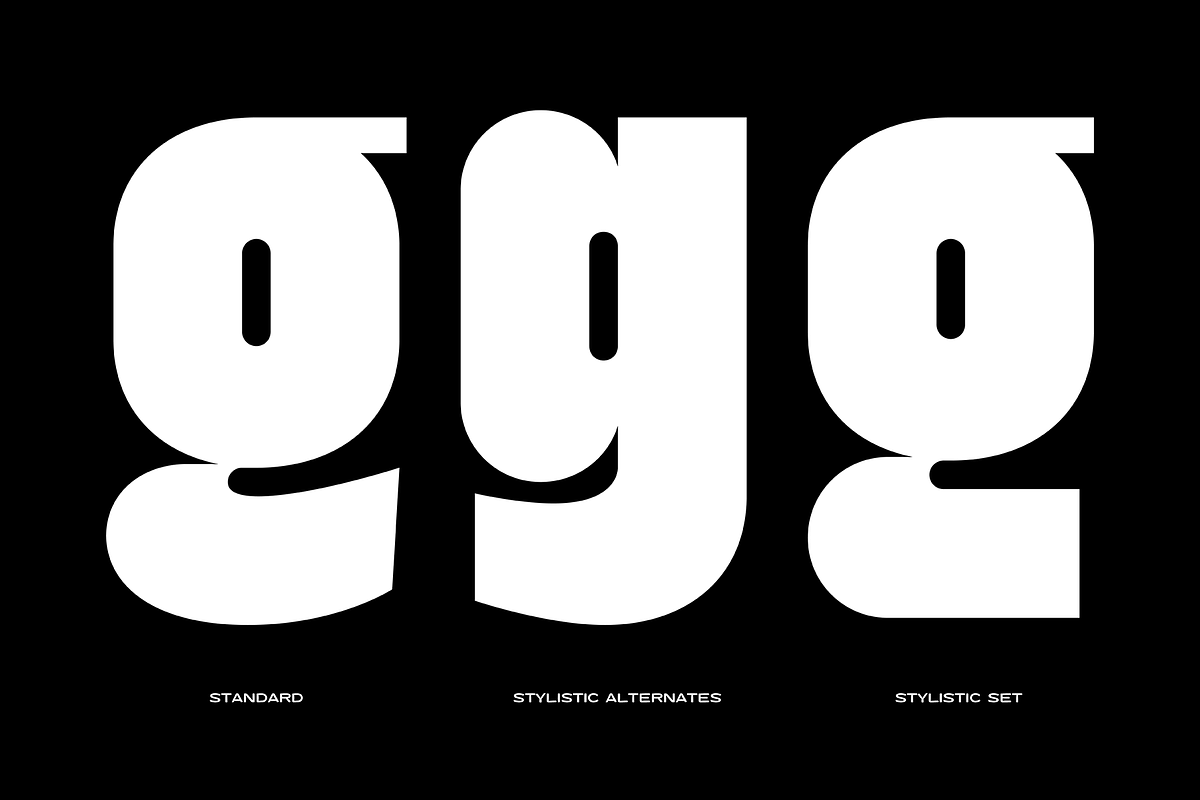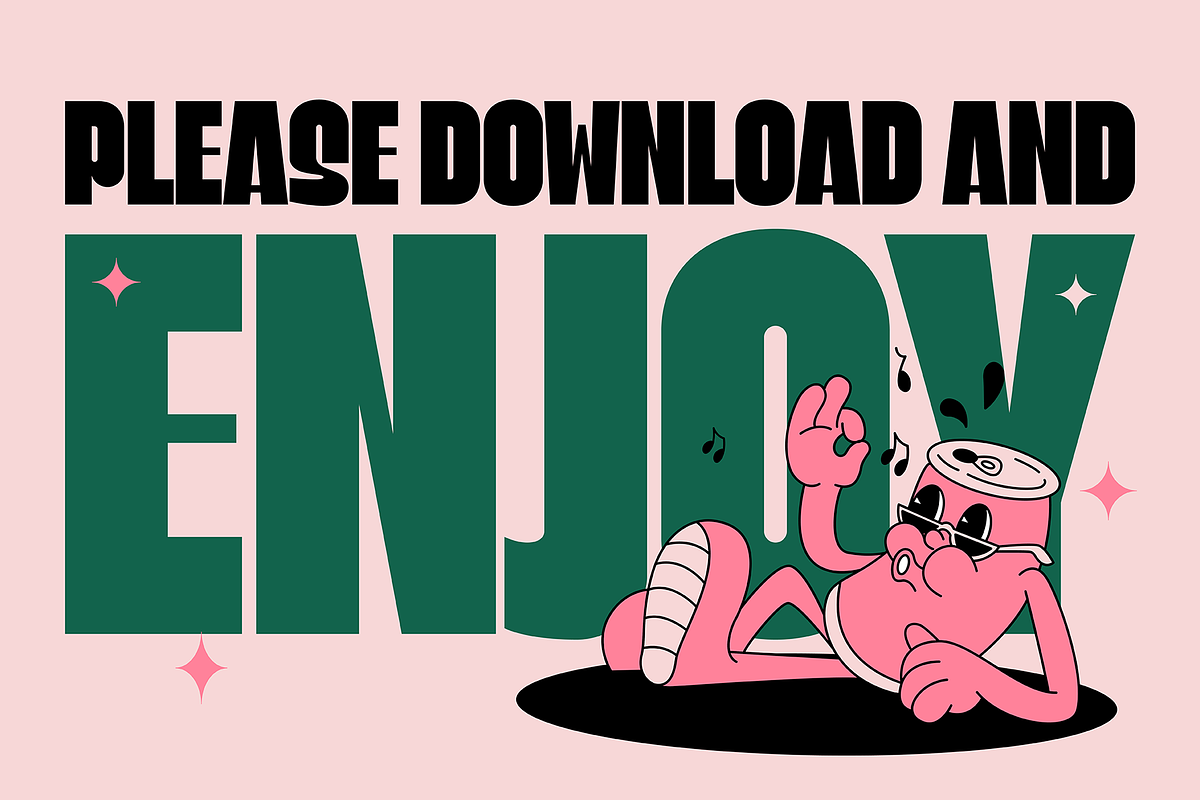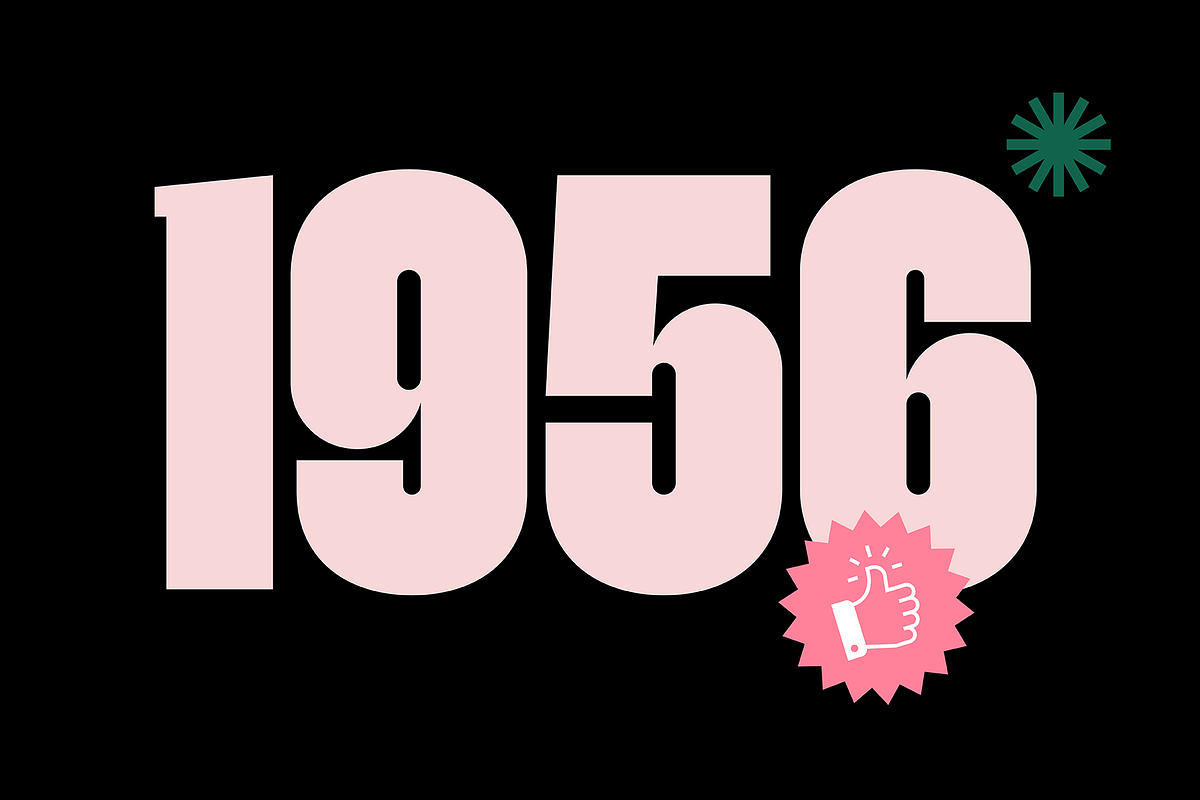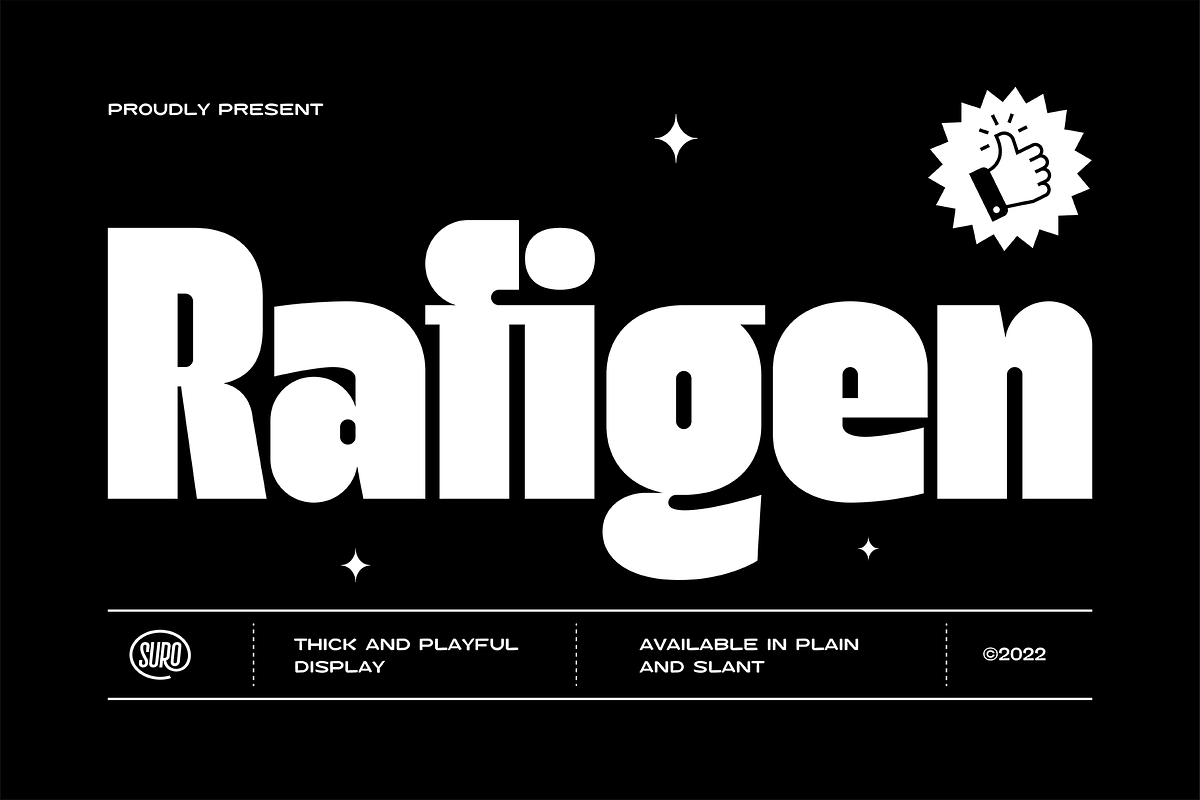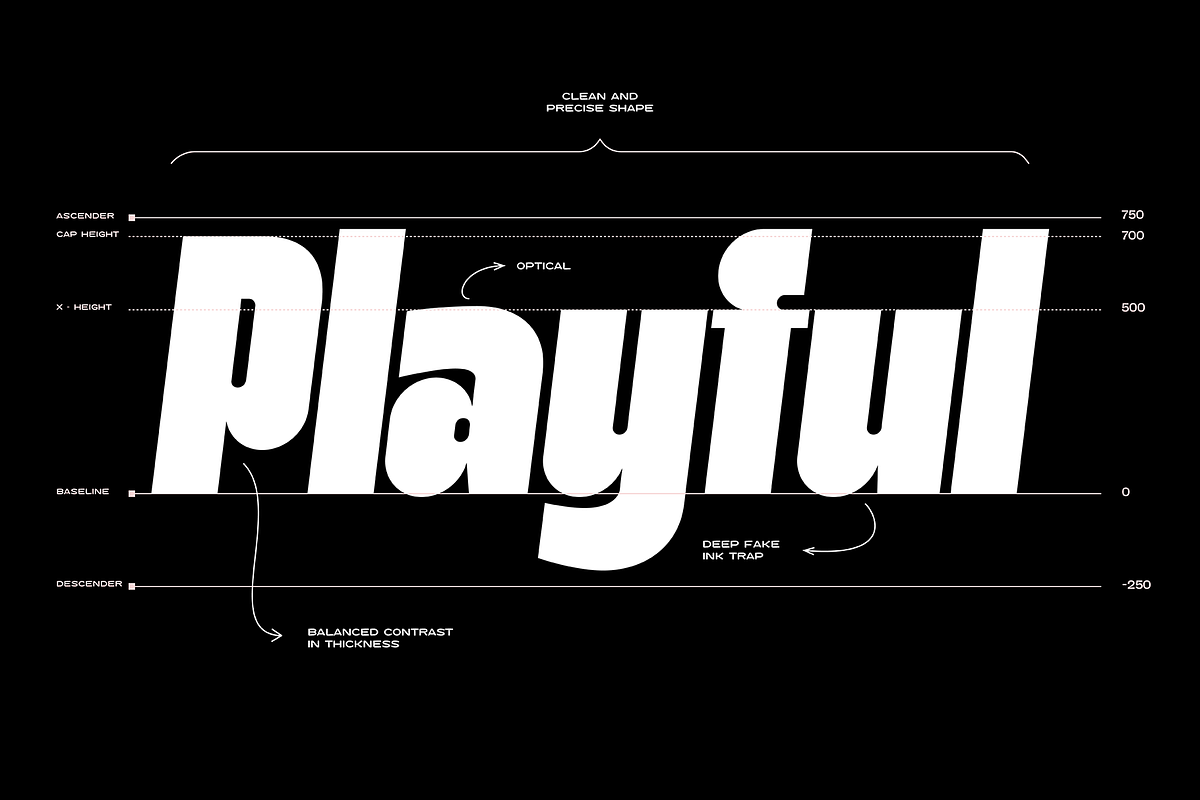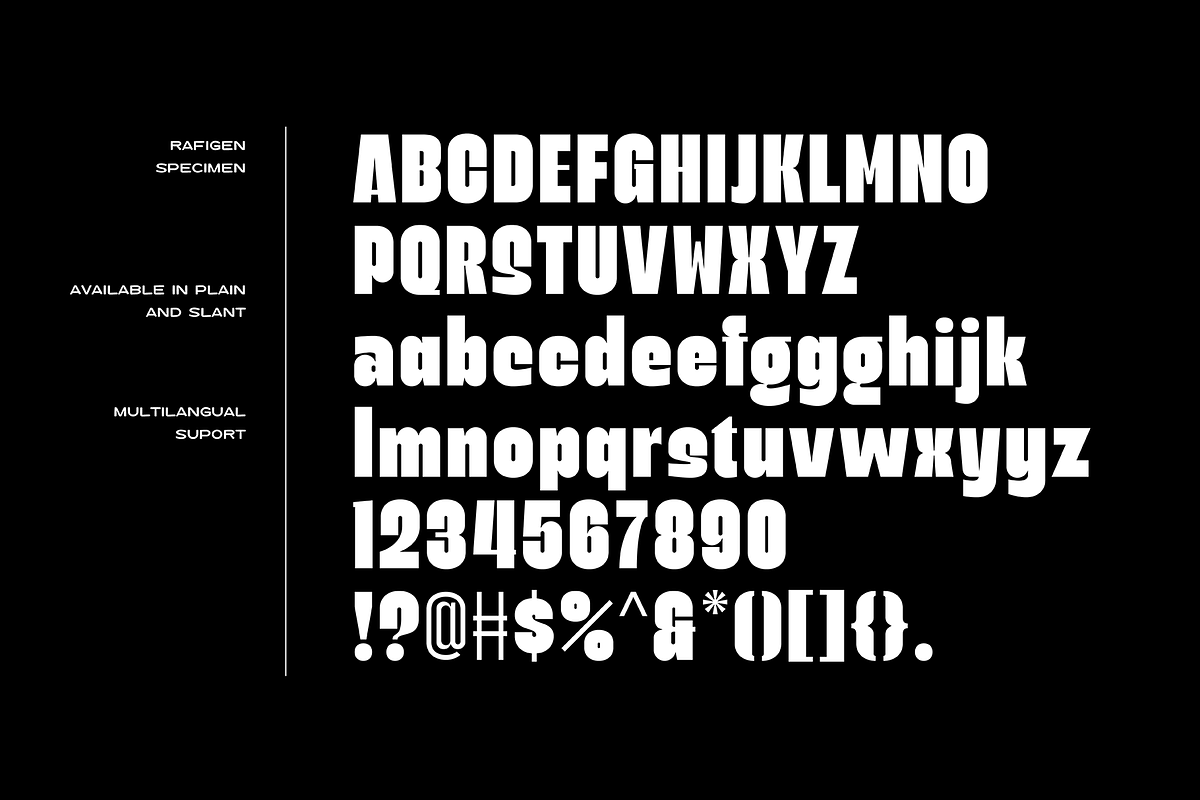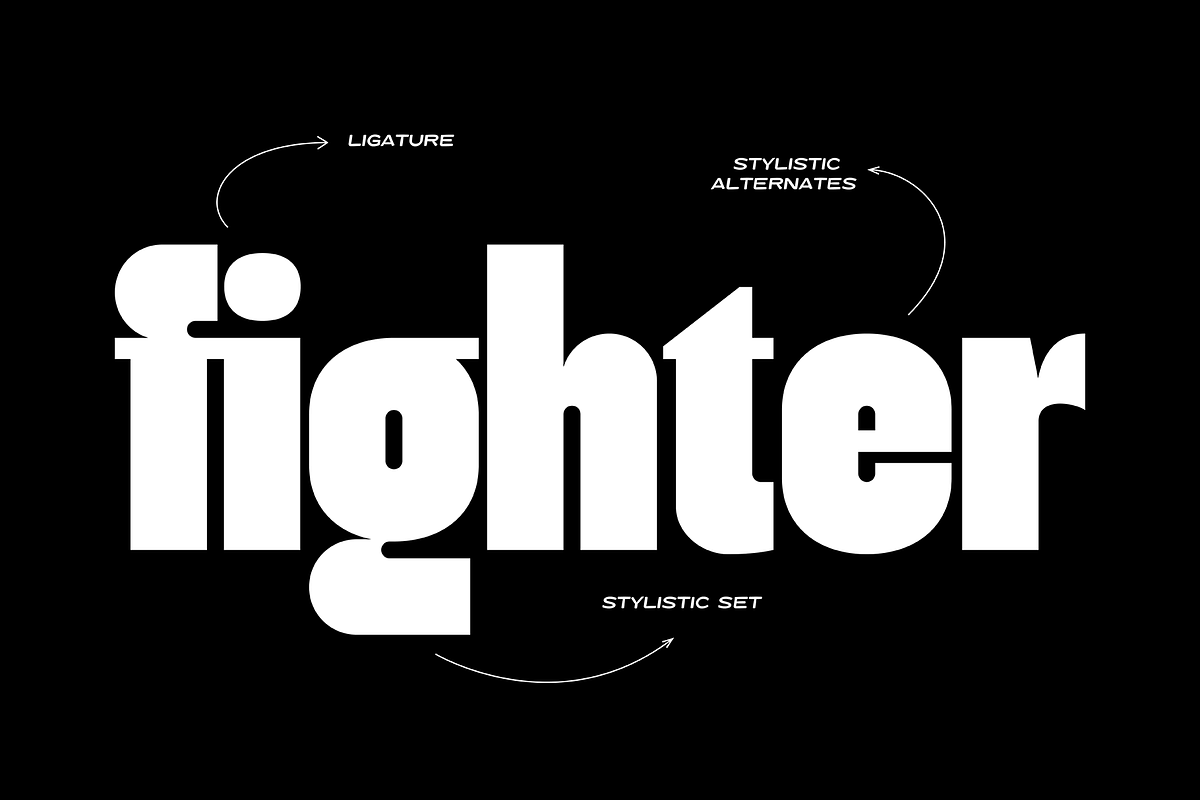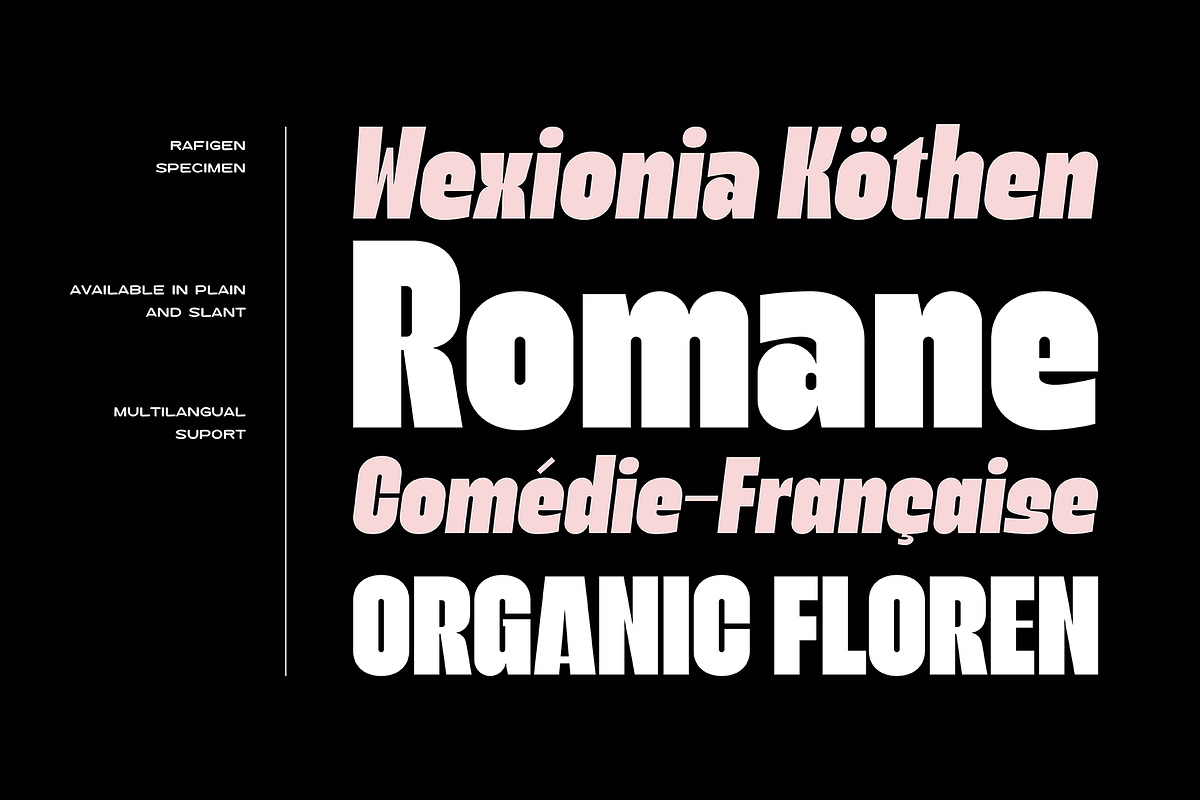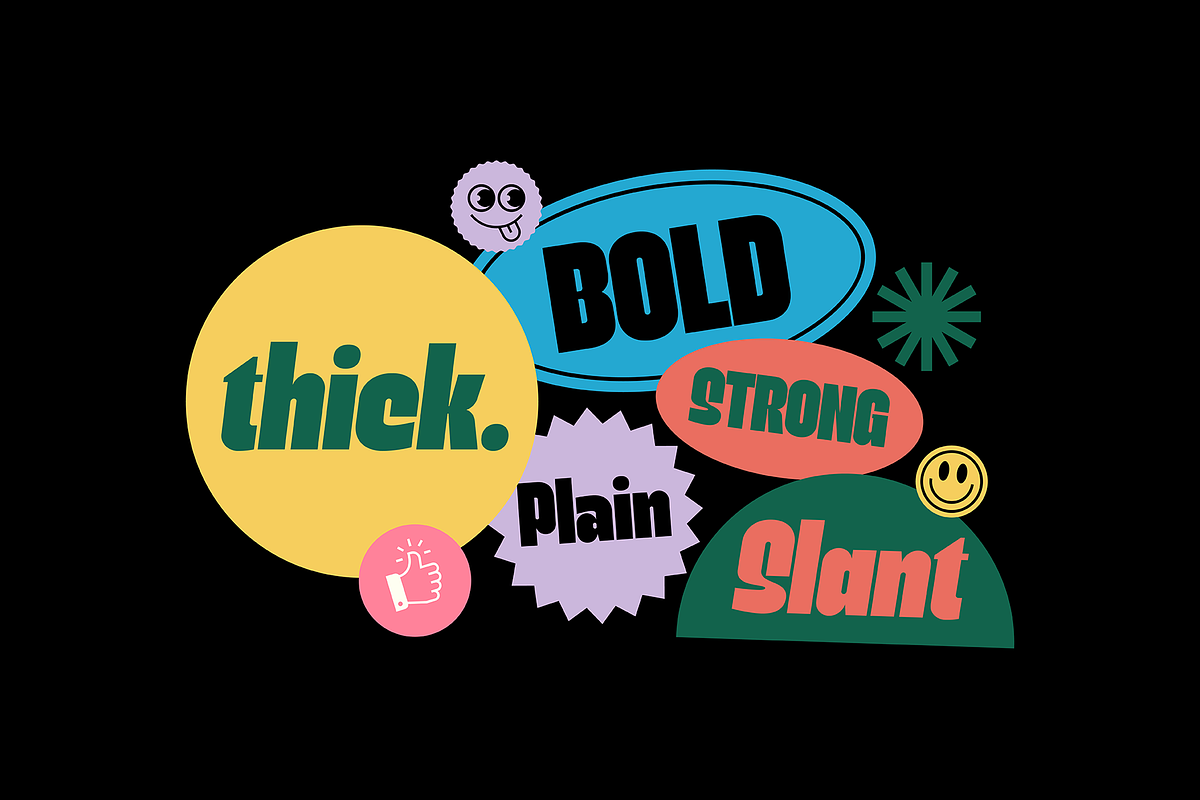
Rafigen Display
Rafigen is a thick and playful typeface . It comes in two different styles, plain and slant.
Really great font to make it easier for you creative work such as — branding, film titles, packaging, advertising, posters, and web or app.